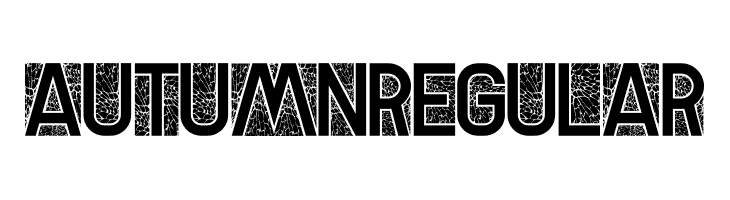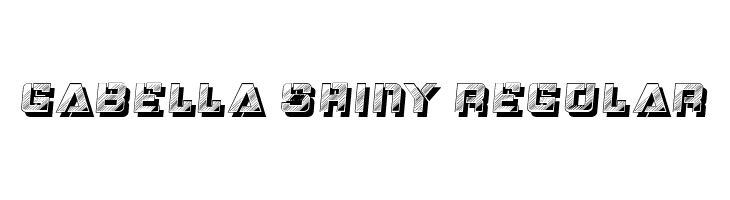
( Fonts by Agustina Sri Suryanti )
A playful, bold font with rounded characters and a lively style.
( Fonts by BrandSemut )
A playful, bold font with a whimsical, hand-drawn style.
( Fonts by John Vargas Beltrán )
A playful, hand-drawn style font with rounded, lively letterforms.
( Fonts by Letteralle Studios )
A bold, playful font with rounded characters and a modern feel.
( Fonts by Astigmatic )
A bold, dynamic script font with high contrast and elegant flourishes.
( Fonts by Brian Kent )
A bold, rounded font with a futuristic and digital aesthetic.
( Fonts by Agustina Sri Suryanti )
A playful, bold font with whimsical, rounded strokes and a lively design.
( Fonts by Arterfak Project )
A bold, playful font with a hand-drawn, energetic style.
( Fonts by Tokopress )
A bold, playful font with a cartoonish style and consistent stroke weight.
( Fonts by Jordi Carreras )
A bold, textured font with a vintage, handcrafted appearance.